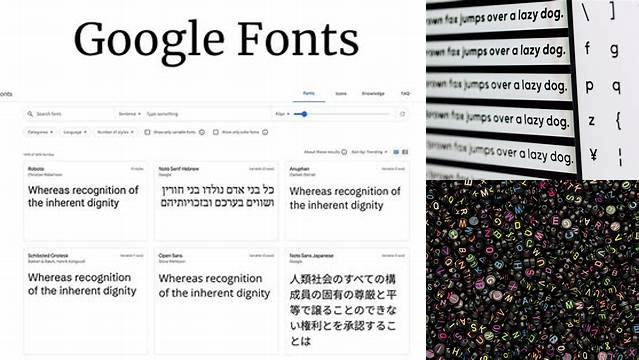
Google Fonts: Your Guide To Free & Stunning Typography
Google Fonts is a game-changer for web designers and developers, offering a vast library of free, open-source fonts. This comprehensive guide will walk you through everything you need to know about Google Fonts, from choosing the right font to implementing it on your website.
What are Google Fonts?
Google Fonts is a service that provides a huge collection of free, high-quality fonts that you can use on your website or in your design projects. Launched in 2010, it has become an indispensable resource for designers and developers alike, offering an extensive range of typography options to enhance the visual appeal and readability of online content. Google Fonts makes it incredibly easy to add beautiful typography to your site without having to worry about licensing fees or hosting the font files yourself. The fonts are open source, meaning you can use, modify, and distribute them freely. This democratization of typography has significantly impacted web design, allowing for more creative and diverse online experiences.
One of the coolest things about Google Fonts is the sheer variety available. Whether you're looking for a classic serif for a formal website, a modern sans-serif for a tech blog, or a quirky display font for a creative project, you're sure to find something that fits the bill. The library includes fonts in various styles, weights, and languages, catering to a diverse range of design needs. You can even filter fonts based on specific criteria, such as category, thickness, slant, and width, to narrow down your search and find the perfect font for your project. Google Fonts is constantly updated with new additions, so you'll always have fresh and exciting options to explore. This vast selection empowers designers to experiment with different typefaces and create unique and memorable visual identities.
Why Use Google Fonts?
There are numerous reasons to use Google Fonts for your web projects. Let's dive into some of the key benefits:
- Cross-Browser Compatibility: Google Fonts are designed to work seamlessly across all major web browsers, ensuring a consistent and visually appealing experience for all users.
- Variety: With hundreds of fonts to choose from, Google Fonts offers a diverse range of styles to suit any design aesthetic. Whether you're looking for a classic serif or a modern sans-serif, you'll find something that fits your needs.
- Regularly Updated: The Google Fonts library is constantly updated with new fonts and improvements, ensuring that you always have access to the latest and greatest typography options.
How to Choose the Right Google Font
Choosing the right font can significantly impact your website's readability, aesthetics, and overall user experience. Here's a step-by-step guide to help you select the perfect Google Font for your project. Choosing the right Google Font involves understanding your brand, your audience, and the purpose of your website. Before diving into the font library, take a step back and consider the overall tone and message you want to convey. A playful, whimsical font might be perfect for a children's website, but it would be completely out of place on a corporate site. Think about your target audience and what kind of fonts they would find appealing and easy to read. Are they a younger demographic who appreciate modern, trendy fonts, or an older audience who prefer classic, traditional typefaces? By clarifying your brand identity and target audience, you'll be able to narrow down your font choices and select a typeface that resonates with your visitors.
Readability is another crucial factor to consider when choosing a Google Font. After all, what's the point of having a beautiful font if no one can read it? Look for fonts with clear, well-defined letterforms and adequate spacing between characters. Avoid fonts that are overly decorative or have unusual shapes, as these can be difficult to read, especially in large blocks of text. Test your chosen font in different sizes and weights to ensure that it remains legible across various devices and screen resolutions. Pay attention to the font's x-height (the height of lowercase letters) and ascenders/descenders (the parts of letters that extend above or below the baseline), as these elements can significantly impact readability. By prioritizing readability, you'll ensure that your website is accessible to all users, regardless of their visual abilities.
Consider the font pairing carefully. While it's tempting to use multiple fonts on your website, doing so can quickly lead to a cluttered and unprofessional look. As a general rule, it's best to stick to two or three fonts at most: one for headings, one for body text, and optionally, one for accents or callouts. When selecting fonts to pair together, look for typefaces that complement each other without clashing. A common approach is to pair a serif font with a sans-serif font, as this creates a visual contrast that is both pleasing to the eye and easy to read. You can also use different weights and styles of the same font family to create visual hierarchy and add interest to your design. Experiment with different font combinations until you find a pairing that feels balanced and harmonious. There are several online tools and resources that can help you with font pairing, so don't be afraid to explore your options and get creative.
Implementing Google Fonts on Your Website
Once you've chosen your fonts, it's time to implement them on your website. Here are the steps you can follow: Implementing Google Fonts on your website is a straightforward process that can be accomplished in a few simple steps. The easiest way to add Google Fonts to your site is by linking to them directly from Google's servers. To do this, go to the Google Fonts website and select the font you want to use. Click on the "Select this style" button next to the font weights and styles you need. A panel will appear at the bottom of the screen with the code snippets you'll need to add to your website. There are two ways to embed the fonts: using a <link> tag in the <head> of your HTML document or using an @import statement in your CSS file.
Google Fonts is an invaluable resource for web designers and developers, offering a vast library of free, high-quality fonts that can enhance the visual appeal and readability of your website. By following the tips and best practices outlined in this guide, you can choose the right fonts, implement them effectively, and ensure a great user experience.